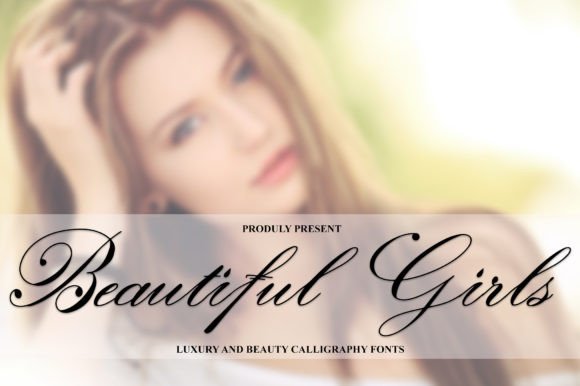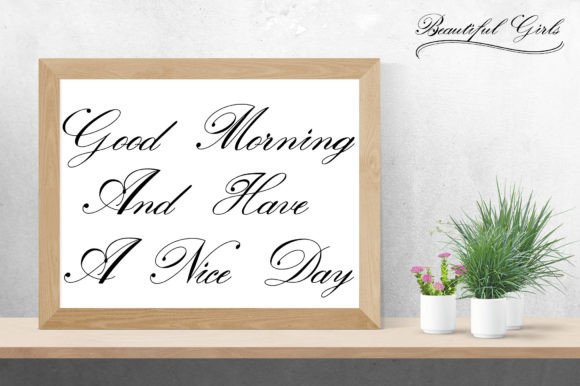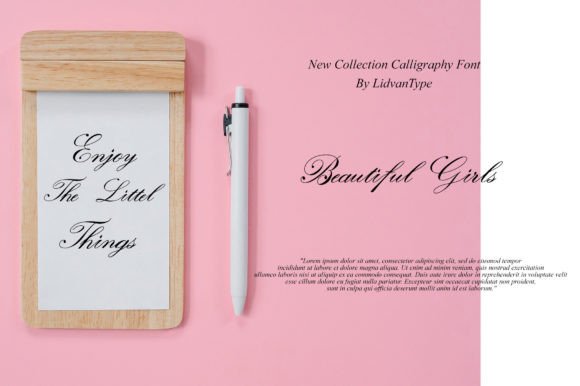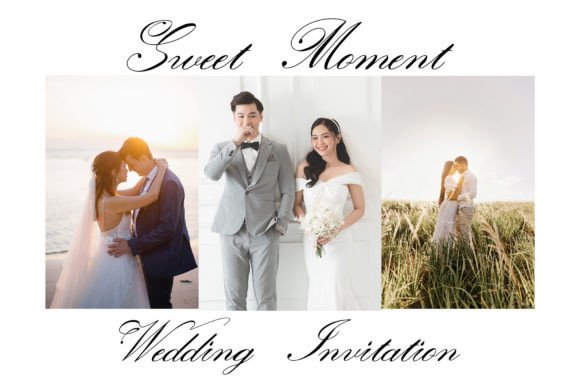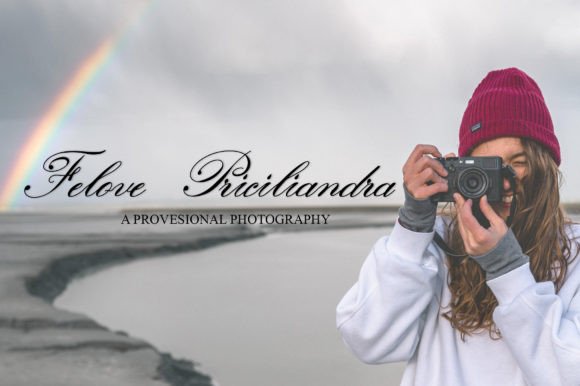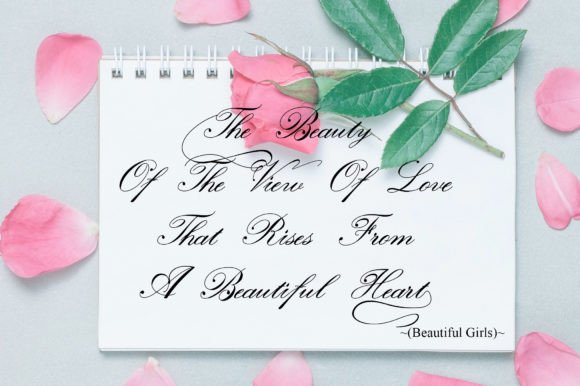
About Beautiful Girls Font
Beautiful Girls is a beautiful handwritten font. Trendy and stylish,this font will enhance any of your creations to be more elegant and glamorous.It is the best choice for creating attractive logos, branding, and quotes.